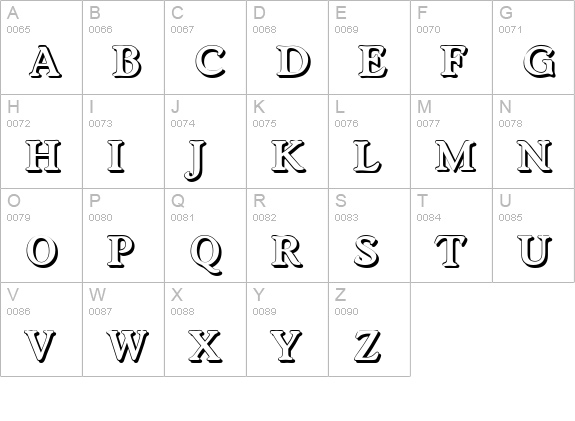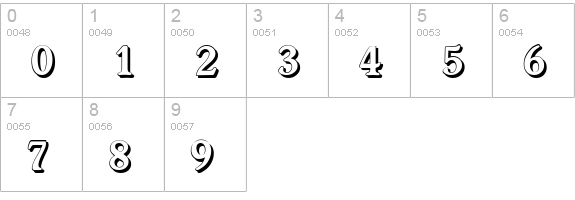
WorcesterShadow-Bold Font Details
WorcesterShadow-Bold is a strong, high-contrast variant in the WorcesterShadow typeface family \xE2\x80\x94 well suited to headlines, attention-grabbing titles, and strong calls-to-action.
Introducing WorcesterShadow-Bold font, a striking and versatile typeface that exudes confidence and sophistication. With its bold and impactful design, this font is perfect for making a statement in your creative projects. The WorcesterShadow-Bold font is ideal for headlines, logos, posters, and any design project where you want to capture attention and leave a lasting impression. Its strong and dynamic presence will elevate your designs and communicate your message with style. Best of all, WorcesterShadow-Bold is available for free download at FontsMarket.com. So go ahead and add this fantastic font to your collection today and start creating visually stunning designs that stand out from the crowd.